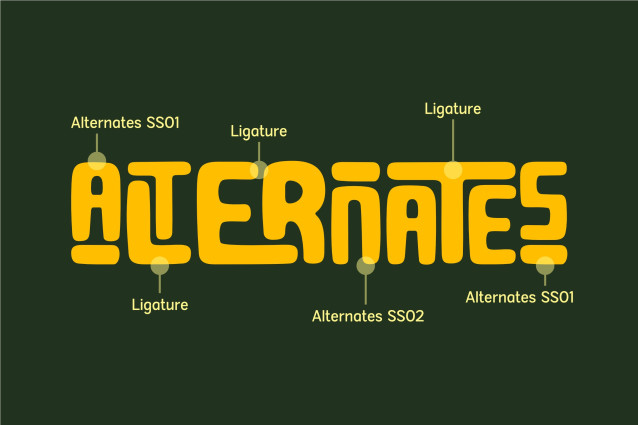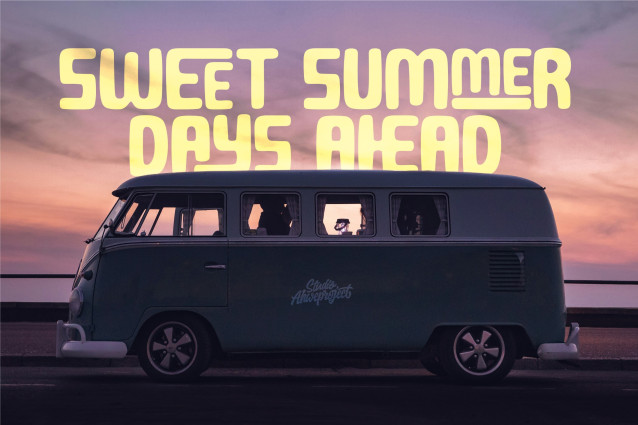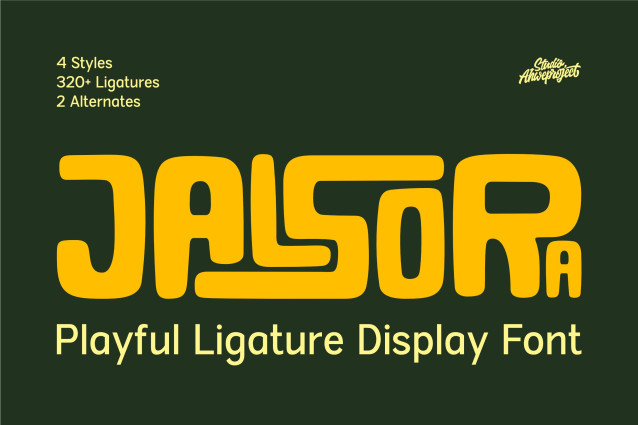
Jalsora Font
Jalsora is a playful display font featuring bold letterforms, rounded corners, and distinctive proportions that make every word feel confident and cheerful. Its geometric construction is balanced with a soft, unconventional personality, creating a friendly and memorable appearance.
The true strength of Jalsora lies in its collection of more than 320 ligatures, allowing ordinary letter combinations to transform into unique custom-lettering compositions. With 4 styles and 2 alternate forms, the font gives you greater creative flexibility while maintaining a consistent visual identity.
Jalsora is perfect for logos, branding, headlines, posters, packaging, children’s products, apparel, stickers, invitations, editorial designs, crafts, and social media content. It performs best at large sizes and in short phrases where its playful details can take center stage.